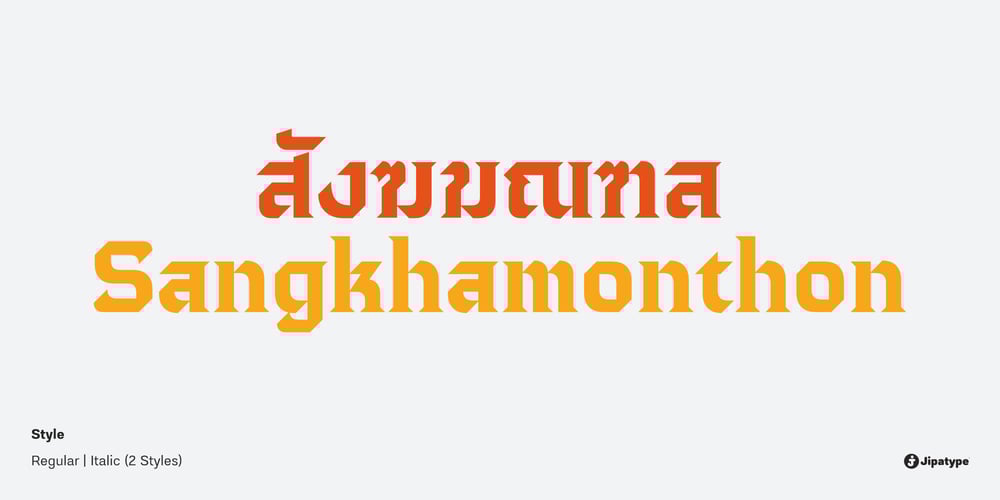
Sangkhamonthon Font Family was designed by Anupap Jaichumnan and published by Jipatype. Sangkhamonthon contains 2 styles and family package options. Sangkhamonthon, a distinctive headline typeface, captivates audiences with its enchanting and sacred essence, highlighted by a sharp 45-degree tip. This font is specifically crafted for use in headlines across a myriad of media platforms, where the emphasis lies in communicating messages related to belief and faith. Whether employed in digital or print media, Sangkhamonthon adds a touch of mystique and reverence, making it a compelling choice for content that seeks to evoke a sense of magic and spiritual significance.